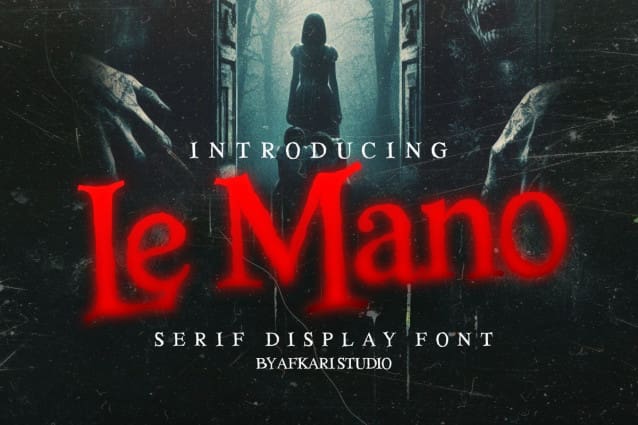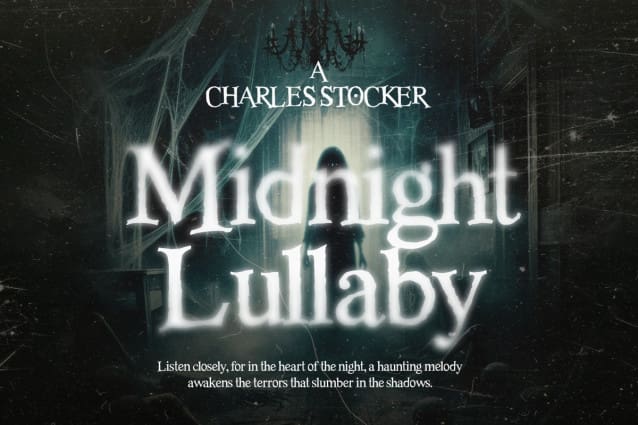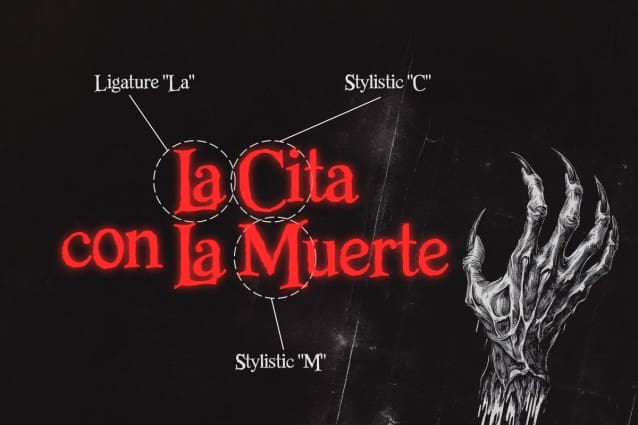
Le Mano Font
Le Mano Font – Unique Serif Display Font, is a captivating serif display font that seamlessly blends classic elegance with modern sophistication. Crafted with precision, its graceful strokes and refined serifs exude a sense of timeless charm, making it a versatile choice for various design projects.
This font commands attention with its distinctive and carefully balanced letterforms, each meticulously designed to offer a harmonious flow and readability. The deliberate spacing and clean lines ensure clarity, even at larger sizes, while maintaining a graceful presence in smaller text.